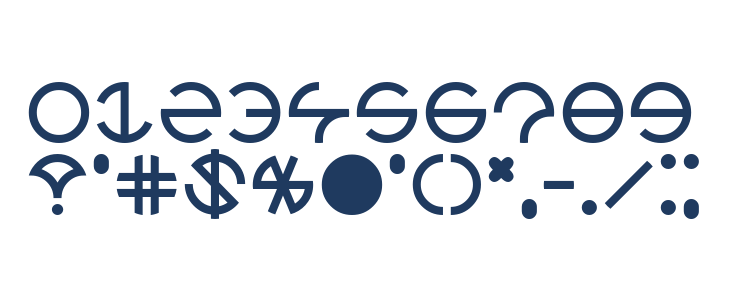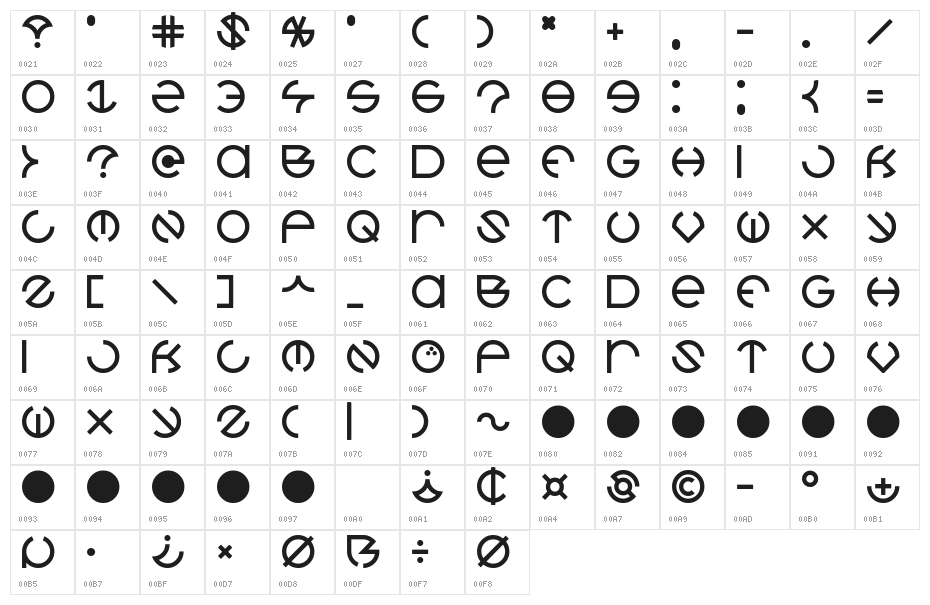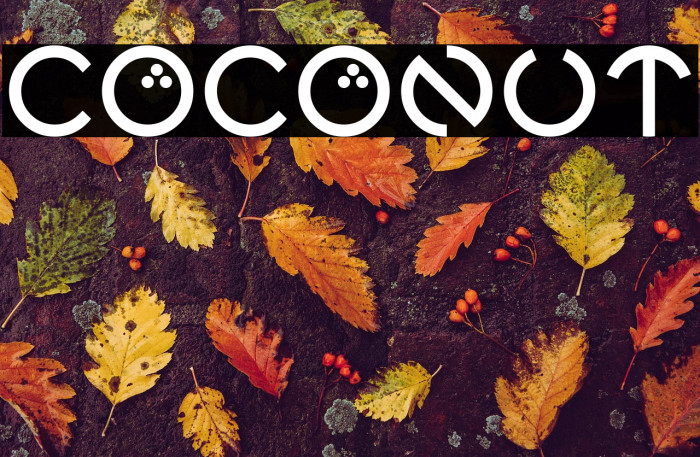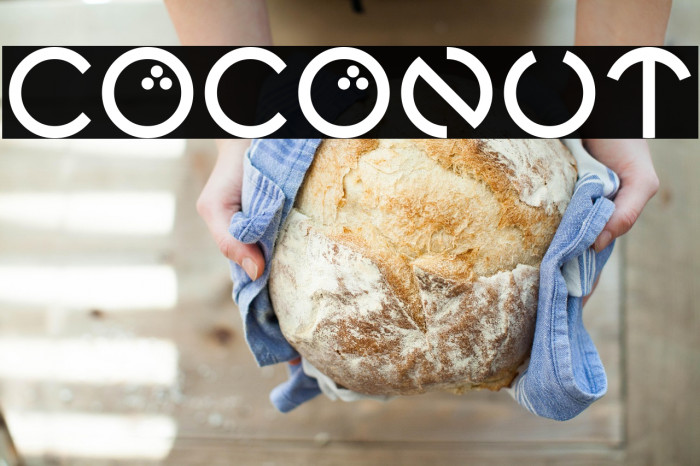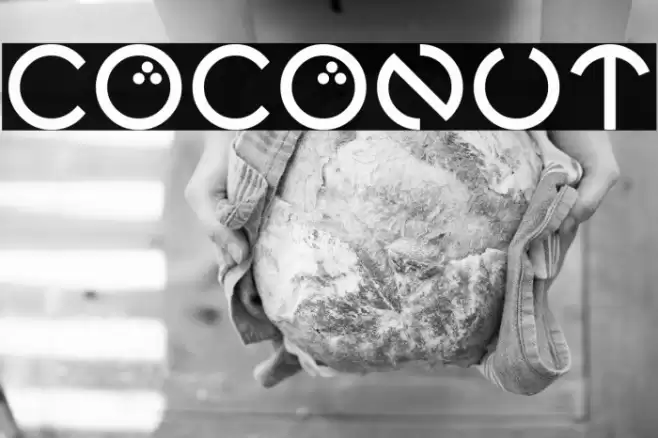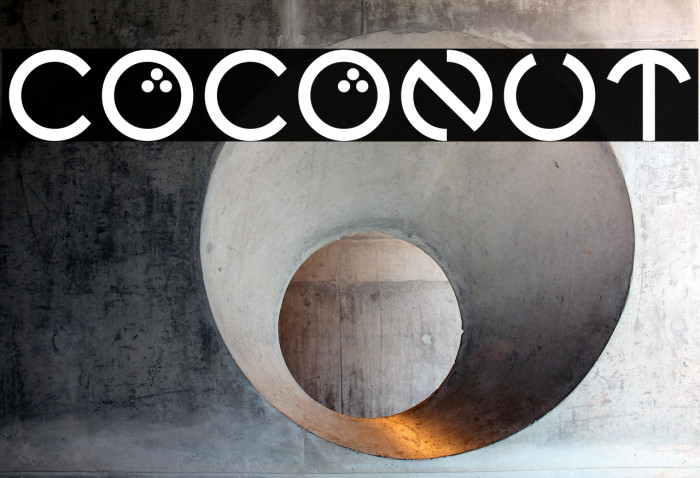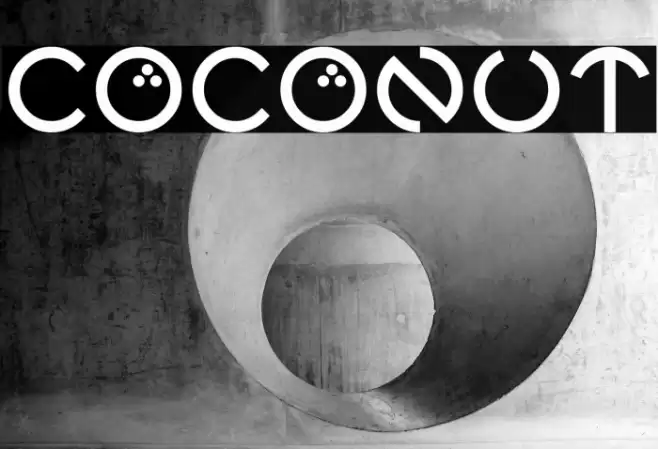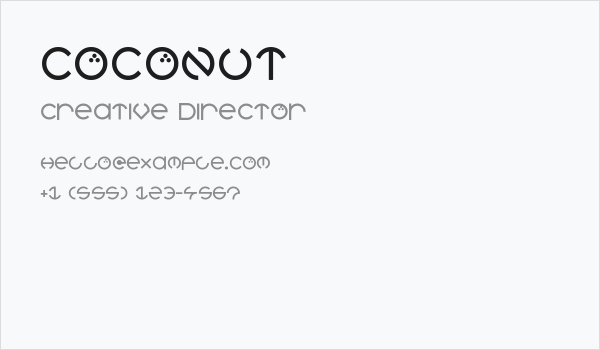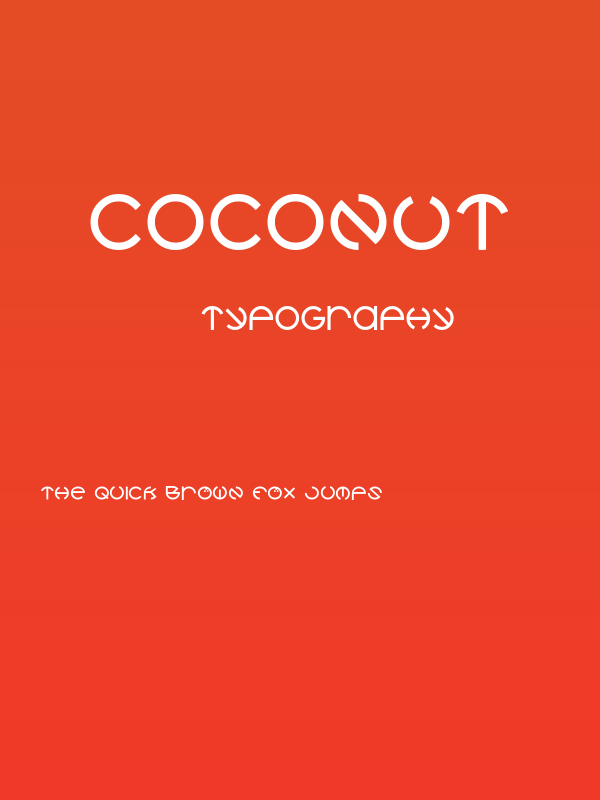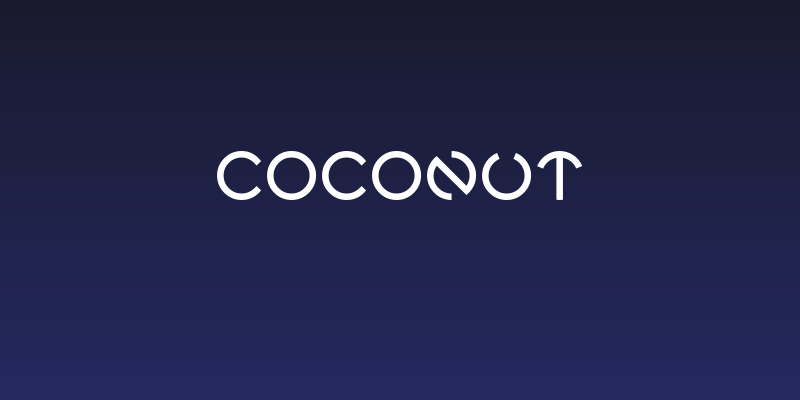
Coconut Font
Coconut Description
This font features a unique and modern design with a geometric and futuristic appearance. The characters are formed with bold, circular shapes and clean lines, creating a sense of symmetry and balance. The uppercase and lowercase letters share a consistent style, with some characters having a mirrored or rotational symmetry. The numbers and special characters maintain the same aesthetic, contributing to a cohesive look. The font's distinct style makes it stand out, offering a fresh and innovative approach to typography.